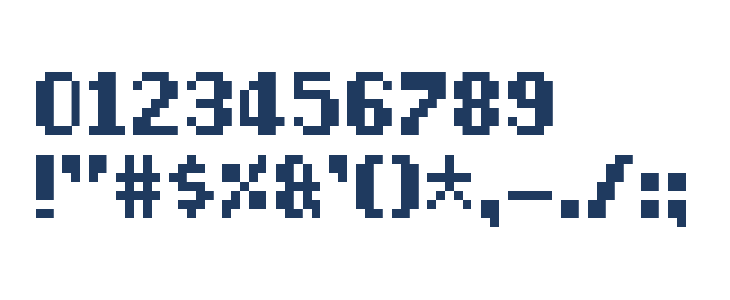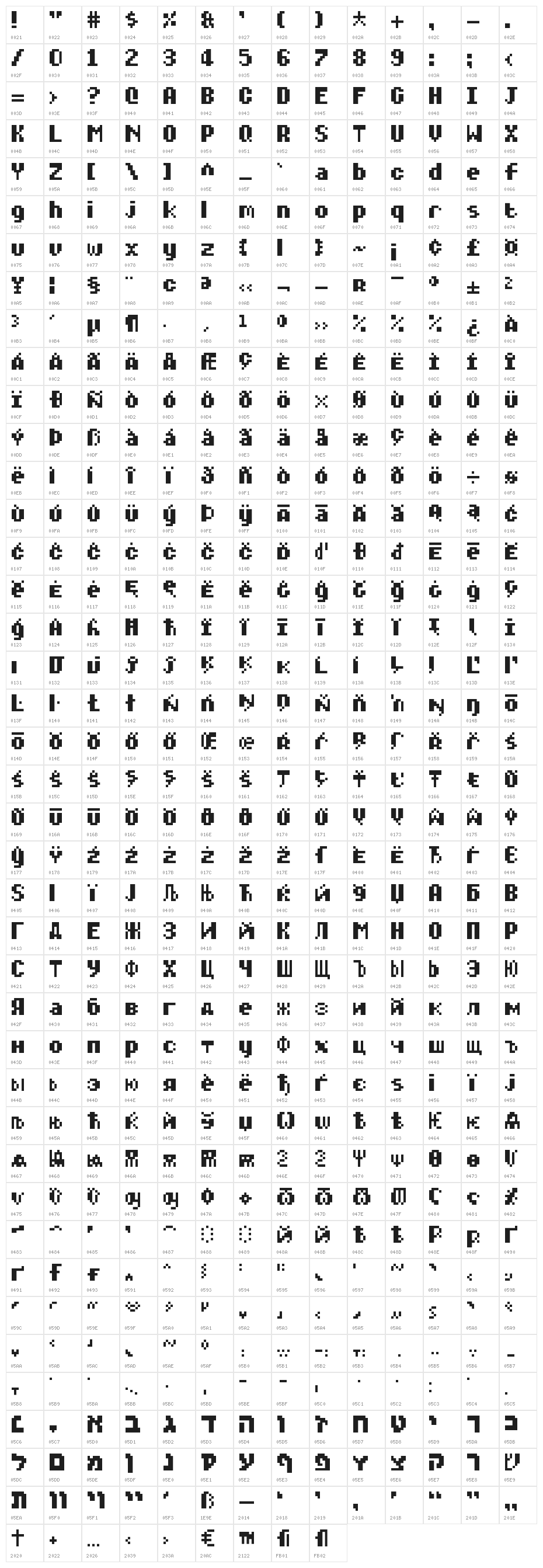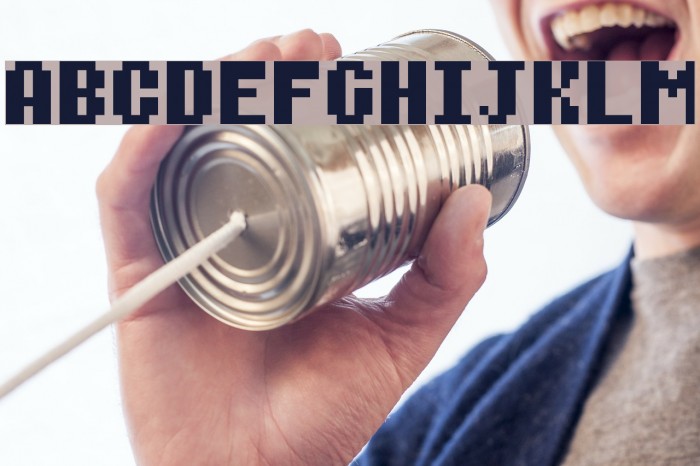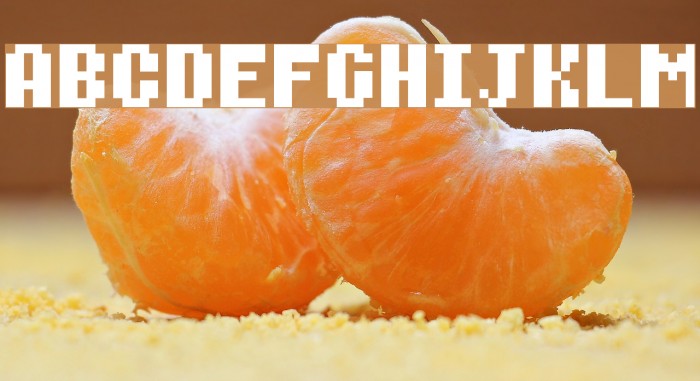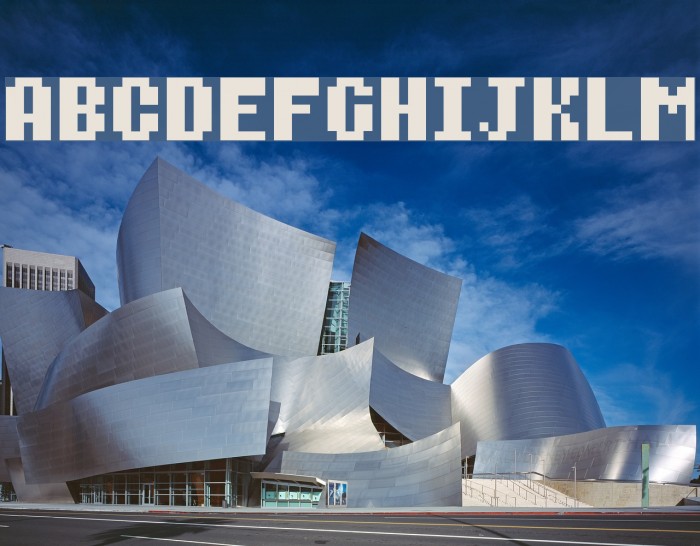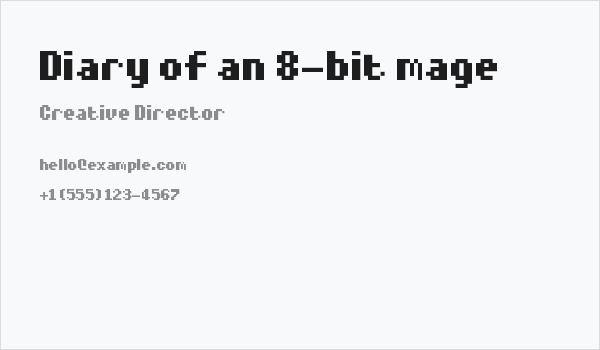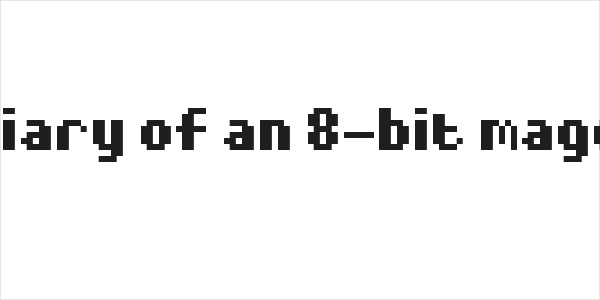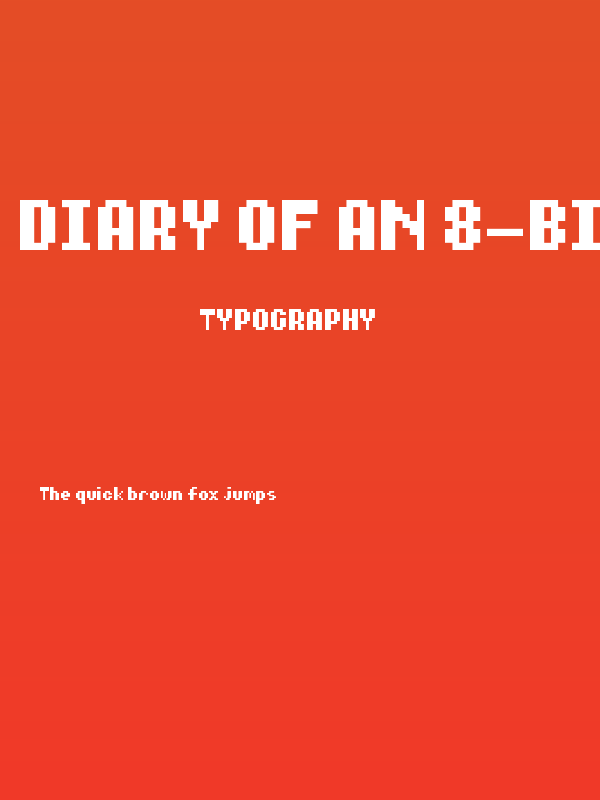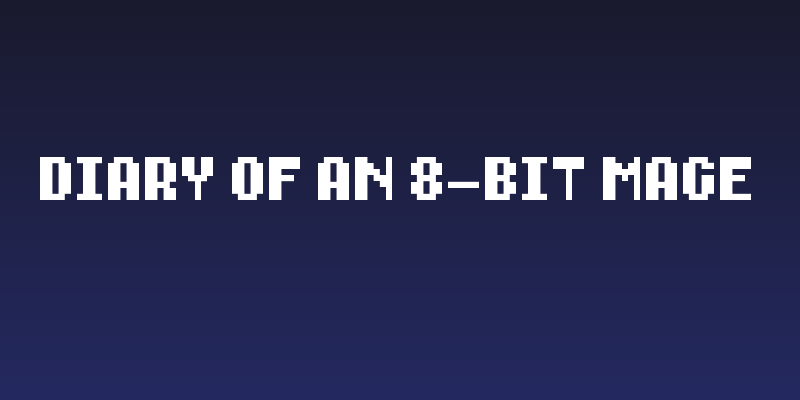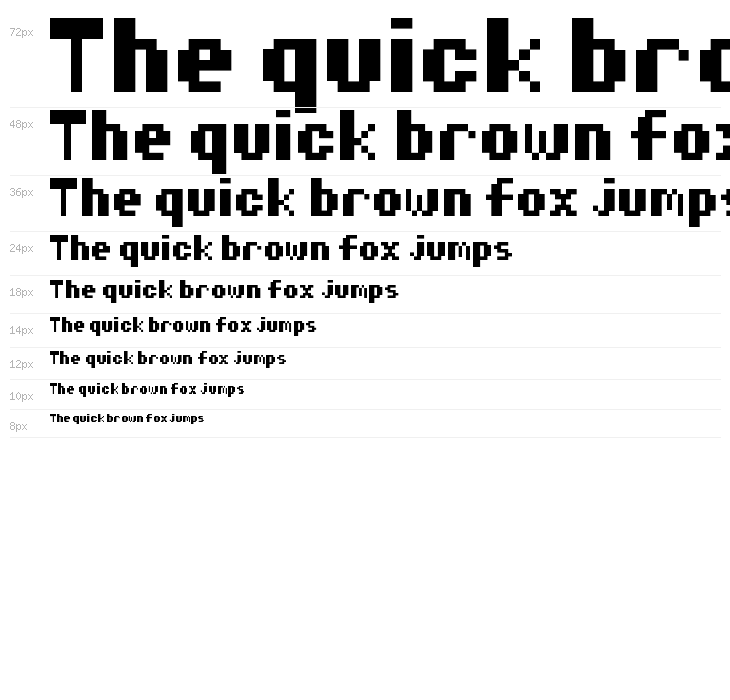
Diary of an 8-bit mage Font
Diary of an 8-bit mage Description
This font embodies a classic 8-bit aesthetic reminiscent of early video game graphics. Each character is constructed with a pixelated, blocky style that evokes nostalgia for retro gaming. The uppercase and lowercase letters maintain a consistent height, with sharp, angular edges that enhance its digital appearance. Numbers and special characters follow the same design principles, ensuring uniformity across the entire set. The font's simplicity and geometric form make it highly legible, even at smaller sizes, while its distinct style adds a playful, vintage charm to any project.
| Proposed Projects | Ideal for video game design, retro-themed posters, digital art, and any project seeking a nostalgic, gaming-inspired look. |